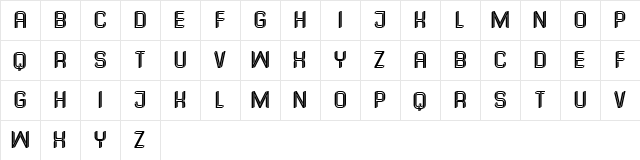
Vologda Regular
Design Context for Vologda Typeface
Vologda takes a measured approach to typography — its balanced proportions and neutral character make it a reliable workhorse for both digital and print work.